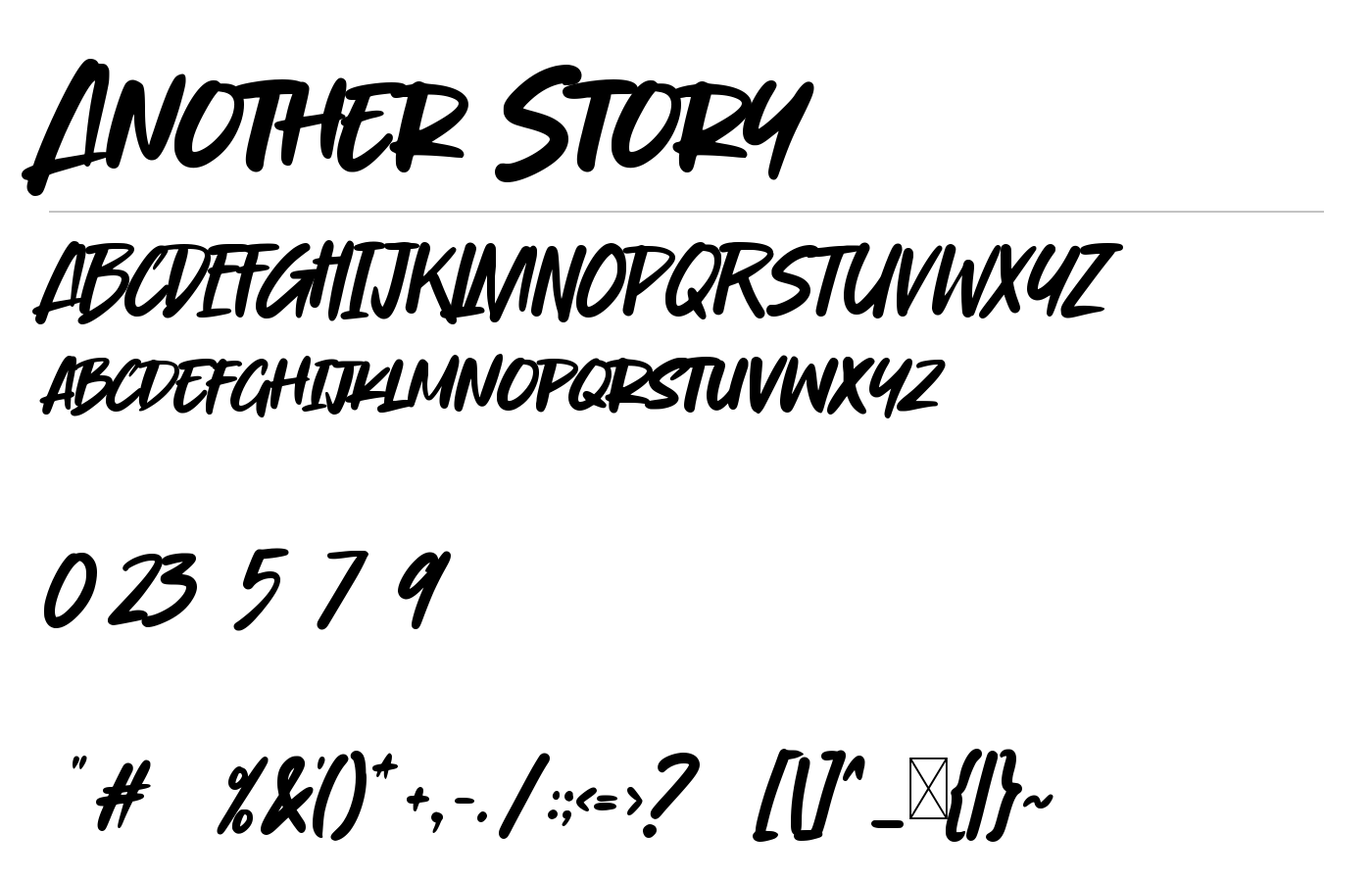
Another Story is a lively, bold script font with a casual, hand-brushed style that conveys energy and personality. Its dynamic strokes and slightly irregular forms make it perfect for creative branding, informal headlines, and designs that want to feel approachable and expressive. This font works well for logos, posters, and any project seeking a modern, artistic touch.
Another Story Font
About Another Story Font
| Font family | Another Story Font |
| Designer | Anang F & Malik Wsn | Gassstype© Studio 2021 |